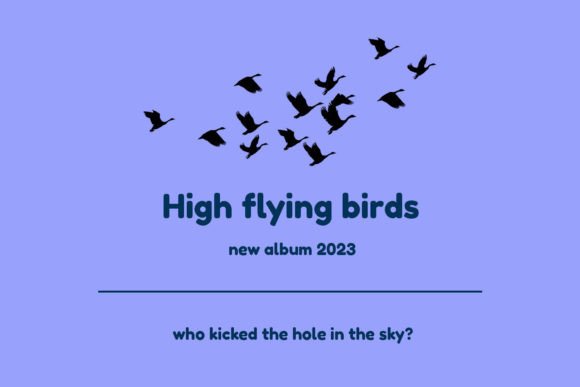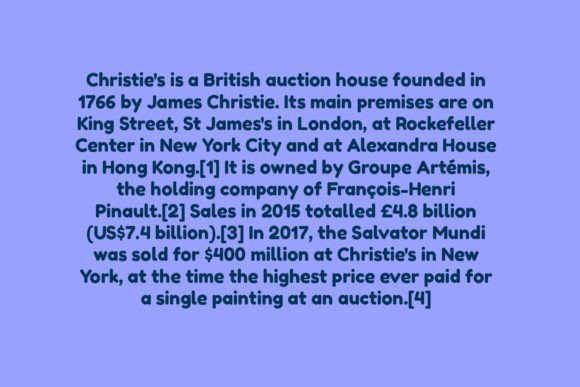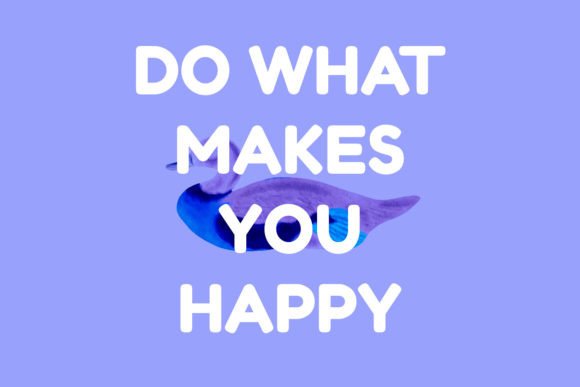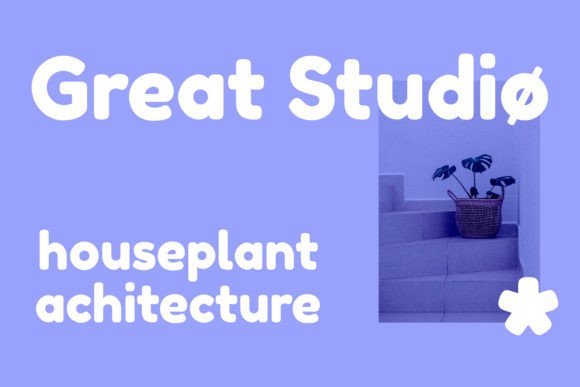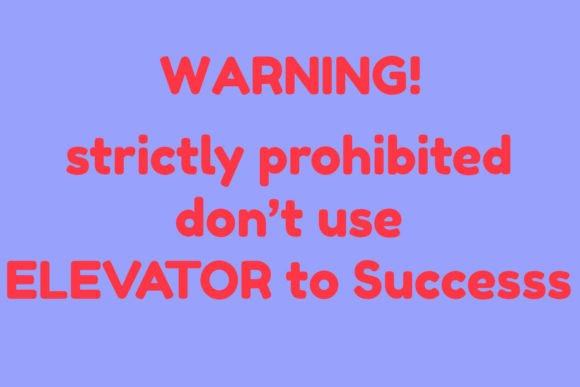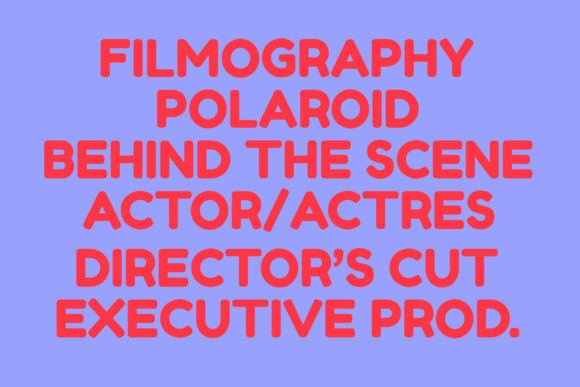
Introducing Belissio Font: The Soft and Versatile Sans Serif Font
Are you a designer or crafter looking for a font that can elevate your creative projects? Look no further than Belissio Font, a soft rounded edge sans serif font that is perfect for a wide range of applications. In this article, we’ll explore the features and benefits of Belissio Font, and show you how it can be used to take your designs to the next level.
What is Belissio Font?
Belissio Font is a modern sans serif font that features soft rounded edges, giving it a friendly and approachable feel. The font is designed to be highly versatile, making it suitable for use in a variety of contexts, from logo design and social media graphics to movie and book titles, invitations, business cards, and web design.
Key Features of Belissio Font
- Soft Rounded Edges: The distinctive soft rounded edges of Belissio Font give it a unique and appealing aesthetic that sets it apart from other sans serif fonts.
- Highly Legible: Despite its soft edges, Belissio Font remains highly legible, even at small sizes, making it perfect for use in body text and captions.
- Versatile: Belissio Font can be used in a wide range of contexts, from digital applications like social media and web design to print applications like business cards and invitations.
- Modern and Fresh: Belissio Font has a distinctly modern feel, making it perfect for designers and crafters who want to create fresh and contemporary designs.
Uses for Belissio Font
So, what can you use Belissio Font for? The possibilities are endless! Here are a few ideas to get you started:
- Logo Design: Belissio Font is perfect for creating logos that are friendly, approachable, and modern.
- Social Media Graphics: Use Belissio Font to create eye-catching social media graphics that stand out from the crowd.
- Movie and Book Titles: Belissio Font is a great choice for movie and book titles, adding a touch of sophistication and elegance to your designs.
- Invitations and Business Cards: Create beautiful invitations and business cards with Belissio Font, perfect for networking and special events.
- Web Design: Use Belissio Font to create stunning website headers, buttons, and other UI elements that are both functional and visually appealing.
Why Choose Belissio Font?
So, why should you choose Belissio Font for your next design project? Here are just a few reasons:
- Unique Aesthetic: Belissio Font has a unique and distinctive aesthetic that sets it apart from other fonts.
- Highly Versatile: Belissio Font can be used in a wide range of contexts, making it a great addition to any designer’s toolkit.
- Easy to Read: Belissio Font is highly legible, even at small sizes, making it perfect for use in body text and captions.
- Modern and Fresh: Belissio Font has a distinctly modern feel, making it perfect for designers and crafters who want to create fresh and contemporary designs.
In conclusion, Belissio Font is a versatile and highly effective sans serif font that is perfect for designers and crafters looking to elevate their creative projects. With its soft rounded edges, high legibility, and modern aesthetic, Belissio Font is sure to become a go-to font for a wide range of applications. So why not give it a try and see the difference it can make in your designs?